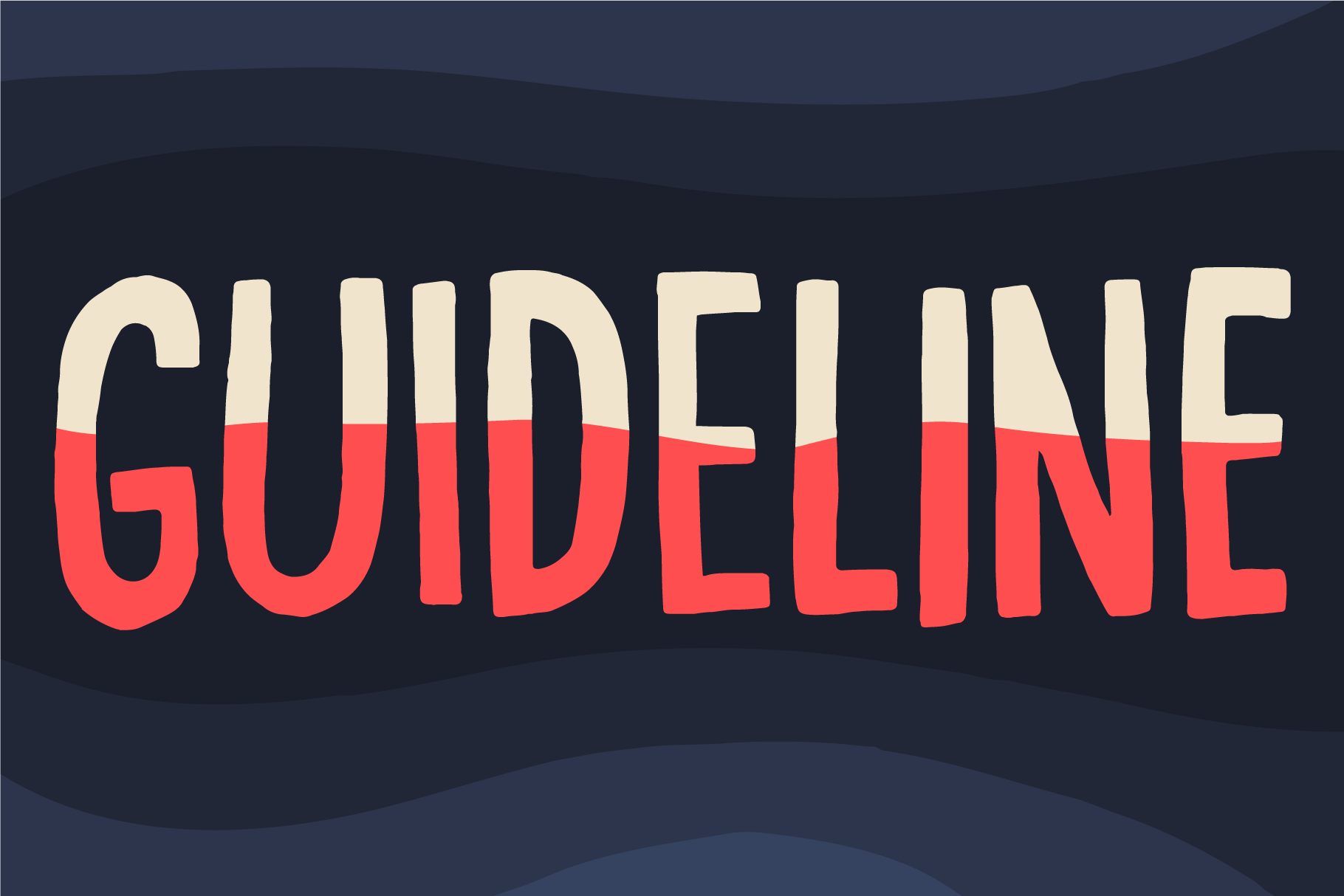
Guideline font
Here is a Guideline for you: Use this font if you want fun, unpredictable, legible and handmade text with influences from both comics and graffiti. Each letter has 5 different versions, and they automatically cycles as you type!